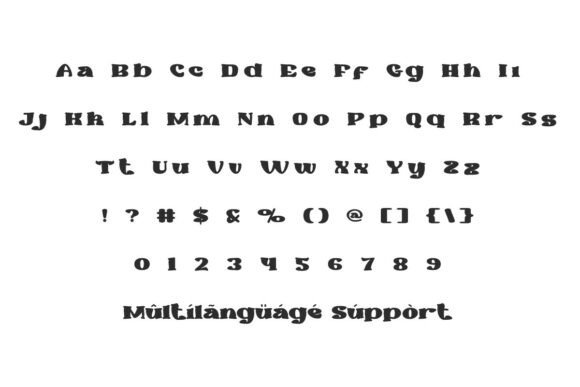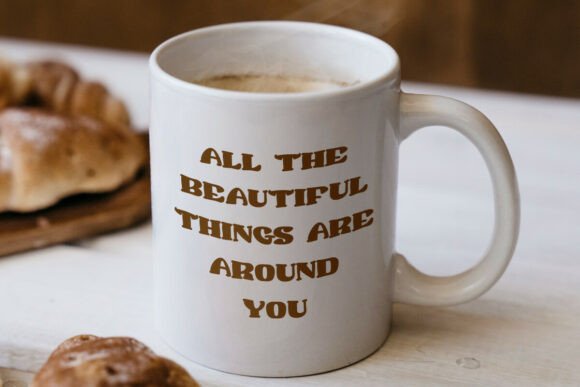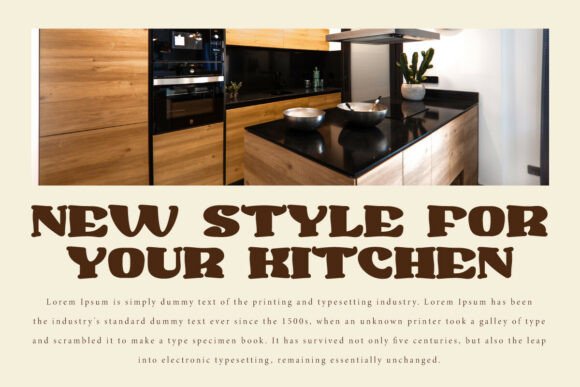
The Bohemian Queen Font: A Groovy Addition to Your Design Arsenal
I’ll never forget the design project that led me to discover the Bohemian Queen font. I was working on a retro-themed poster for a music festival, and I was struggling to find the perfect font that captured the essence of the 1960s and 1970s. The client wanted something bold, playful, and artistic, but I was coming up empty-handed. That was until I stumbled upon Bohemian Queen, a bold, groovy display font that instantly transported me to the psychedelic era.
Bohemian Queen has quickly become one of my go-to fonts for any project that requires a dash of bohemian flair. Here’s what I love about it:
- ✨ Bold and eye-catching: Bohemian Queen is a statement font that demands attention. Its thick, whimsical letterforms are perfect for creating bold headlines and titles.
- ✅ Highly readable: Despite its chunky shapes, Bohemian Queen remains highly readable, even at smaller sizes.
- 🎨 Versatile: This font is perfect for a wide range of design projects, from posters and album covers to T-shirts and festival flyers.
And, like any font, it’s not without its quirks:
- 🤔 Slightly uneven baseline: While this adds to the font’s handcrafted, hippie aesthetic, it may not be suitable for projects that require precise typography.
- ⚠️ Limited use in body text: Bohemian Queen is best used for headlines and titles. Its boldness and chunkiness make it less suitable for body text.
- Use the font for headings and titles to add a touch of personality to your document.
Bohemian Queen was inspired by the psychedelic era of the 1960s and 1970s, a time of great creativity and experimentation. The font’s designer wanted to capture the essence of this era, with its bold, playful, and artistic vibe. The result is a font that’s perfect for designers who want to add a touch of nostalgia and rebellion to their typography.
- Q: What type of projects is Bohemian Queen best suited for?
- A: Bohemian Queen is perfect for retro-inspired design projects, such as posters, music album covers, T-shirts, festival flyers, and Instagram quotes.
- Q: Can I use Bohemian Queen for body text?
- A: While Bohemian Queen is highly readable, it’s best used for headlines and titles. Its boldness and chunkiness make it less suitable for body text.